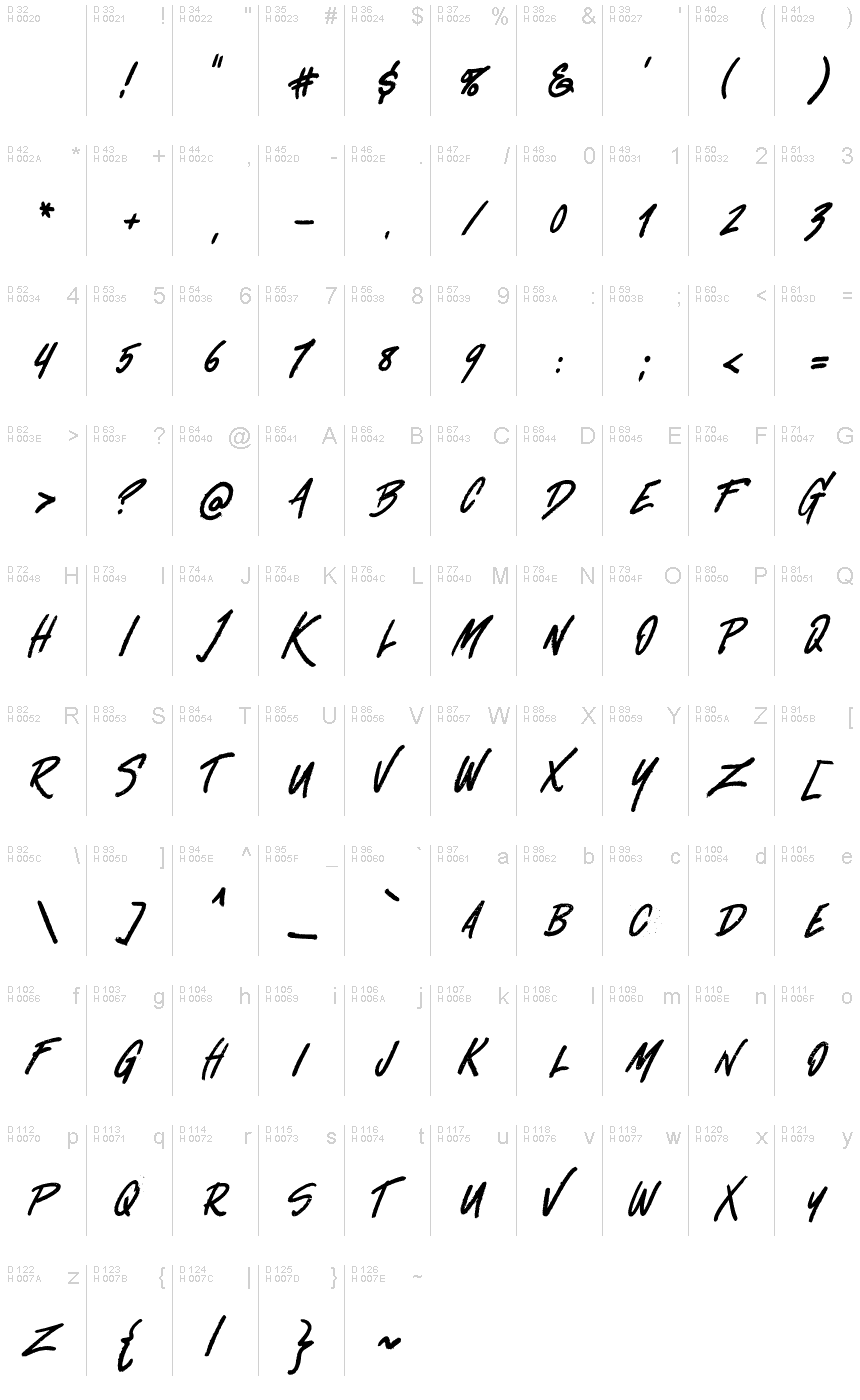
Butcher's
Butcher's font is a nice brush typeface designed by LeoSupply.co
Font bursting with energy, quick strokes and sharp edges. Ideal for loud messages. Very interesting to use for logos, name tags, handwritten quotes, product packaging, merchandise, social media & greeting cards .Also, ideal to make t-shirts design and other clothing products.